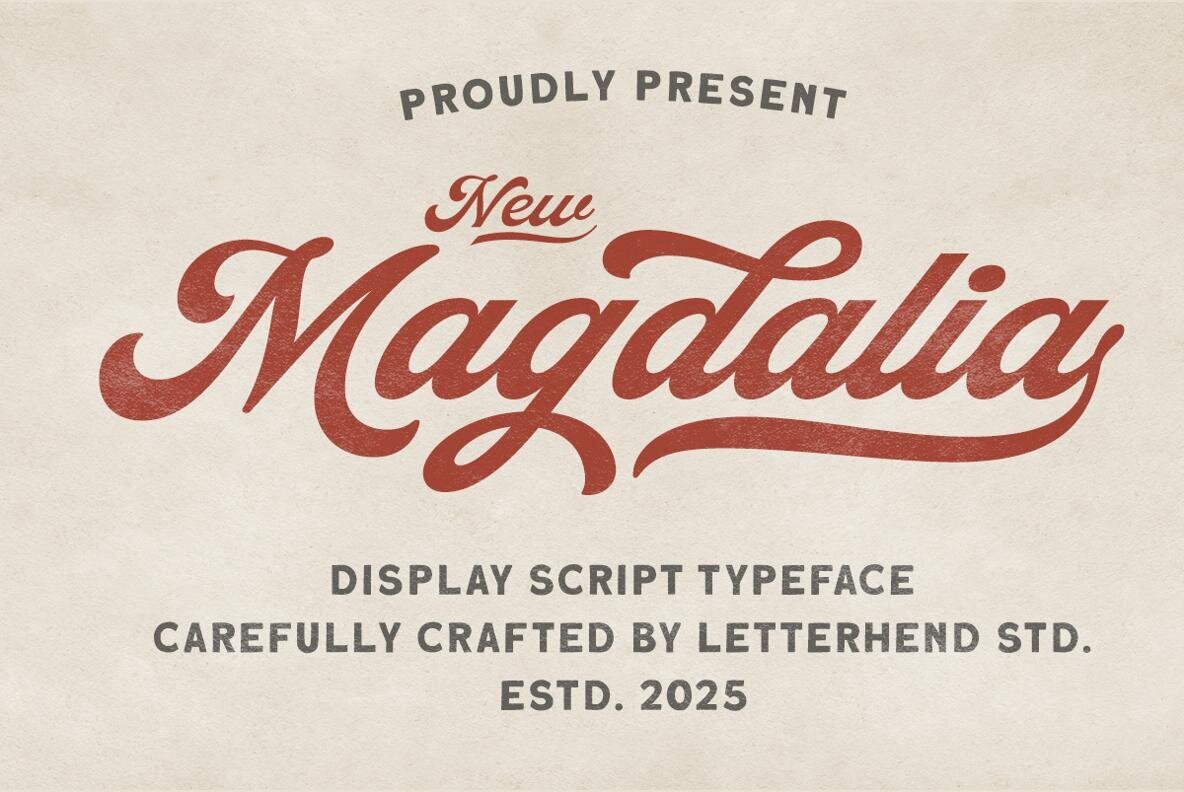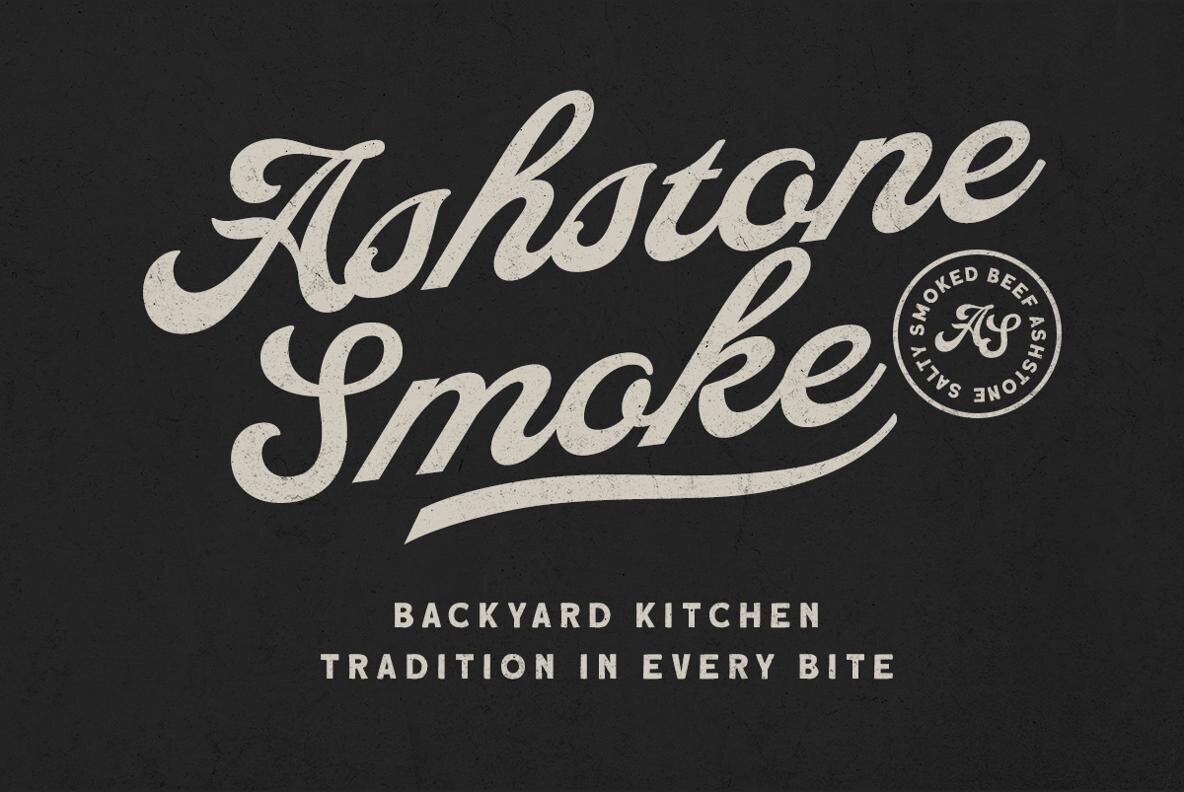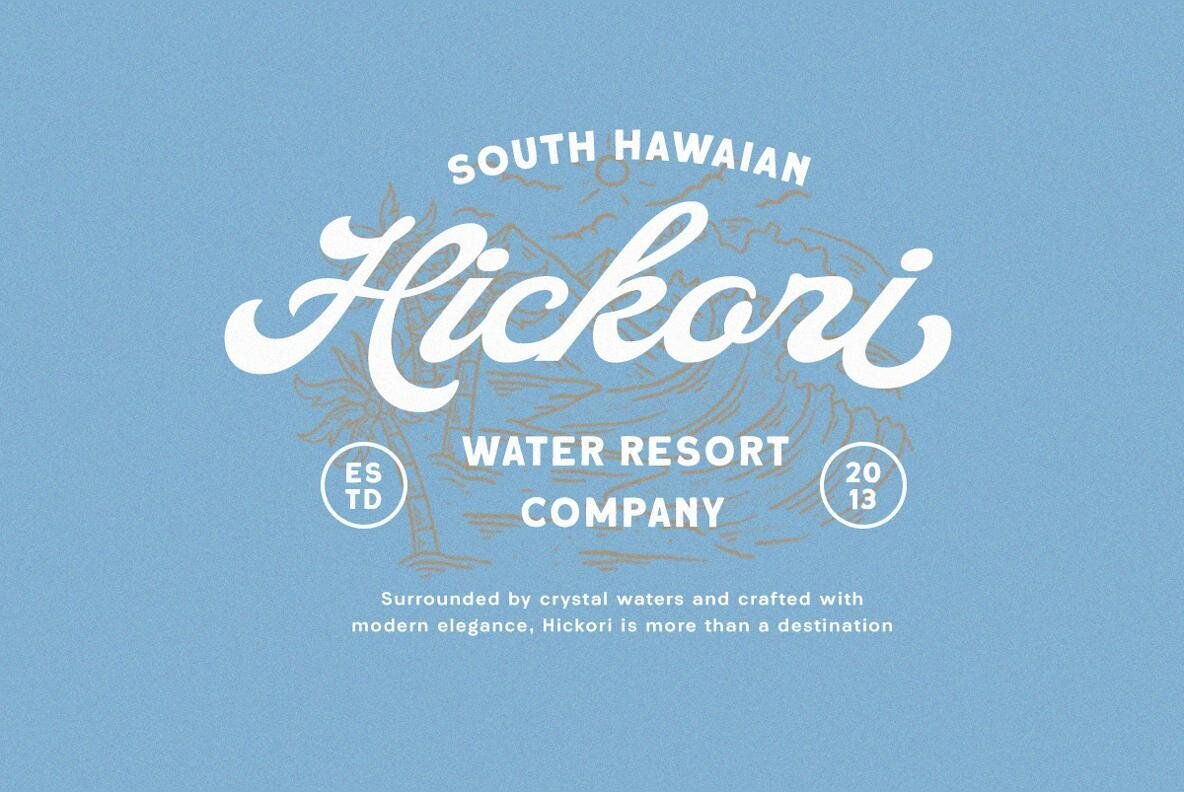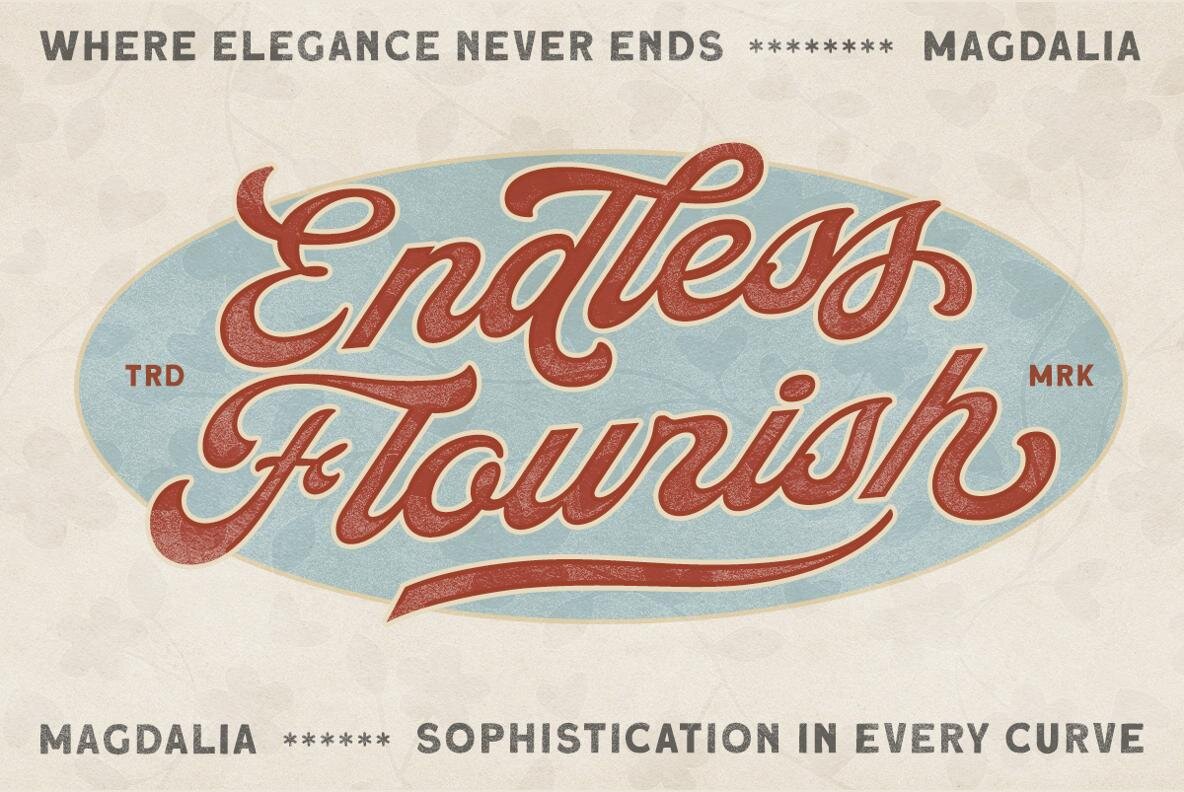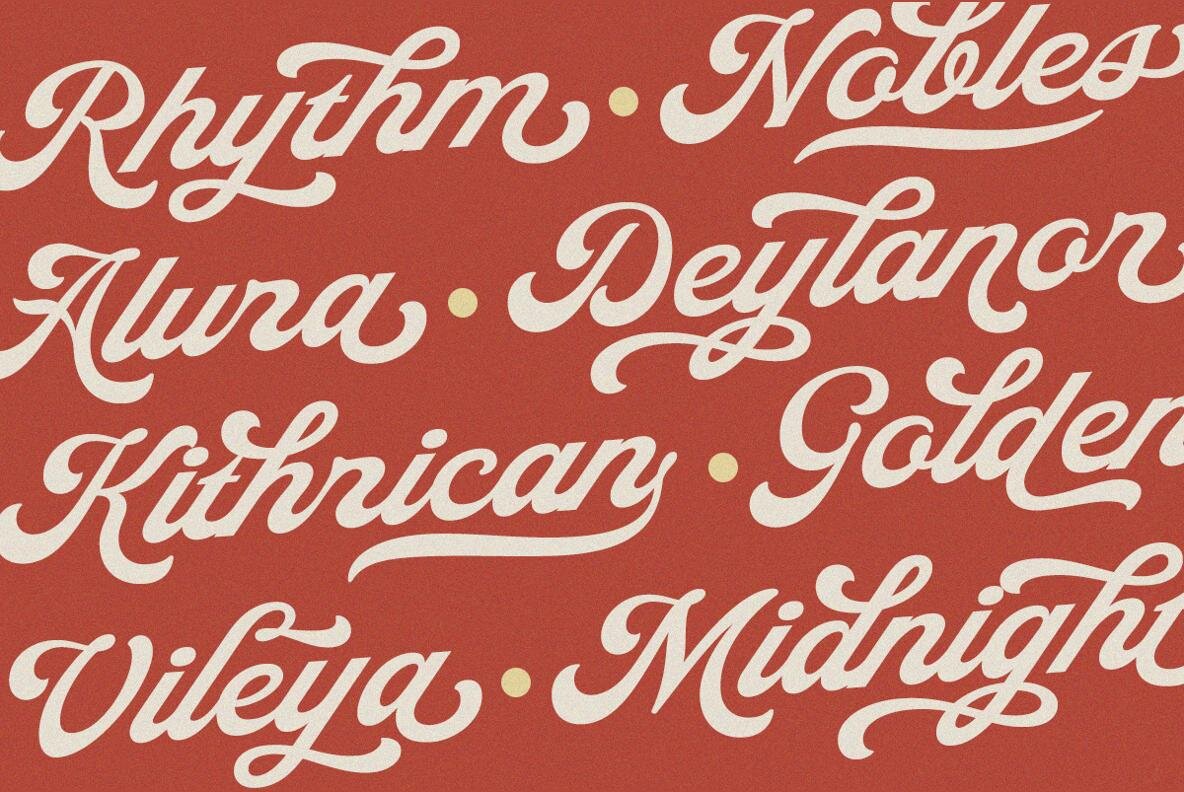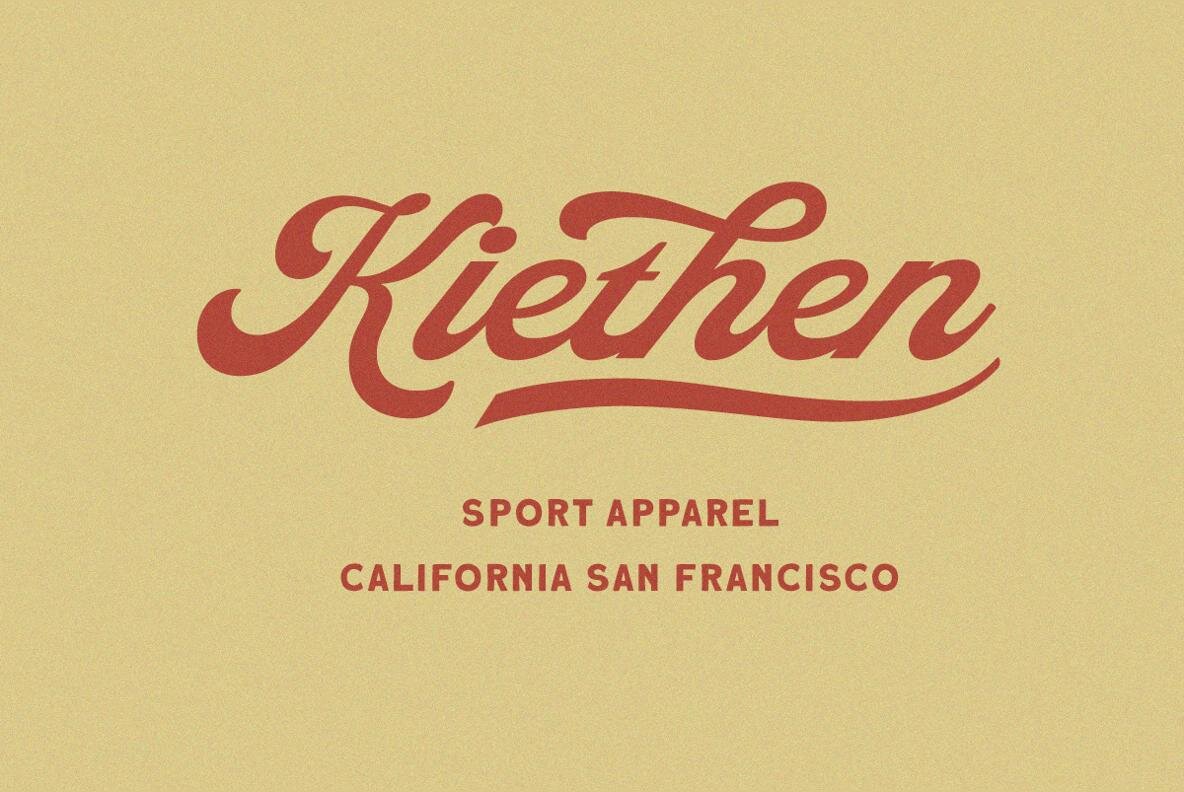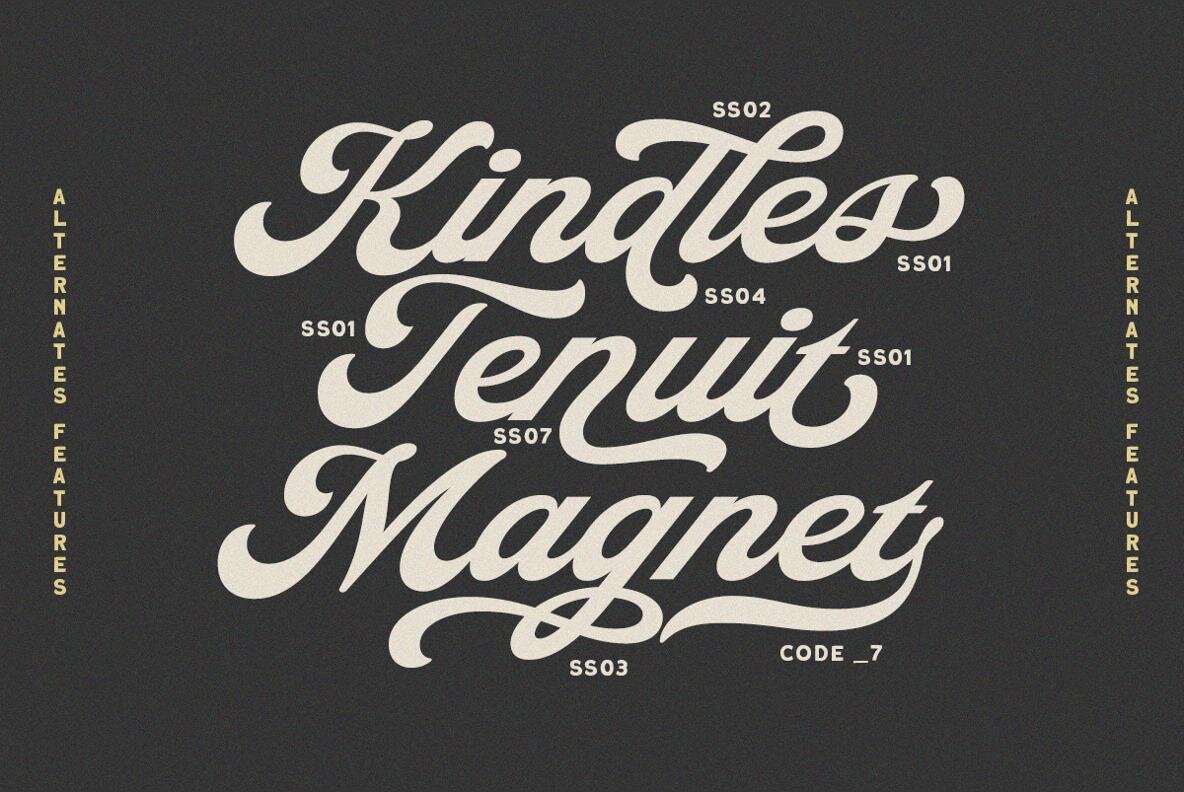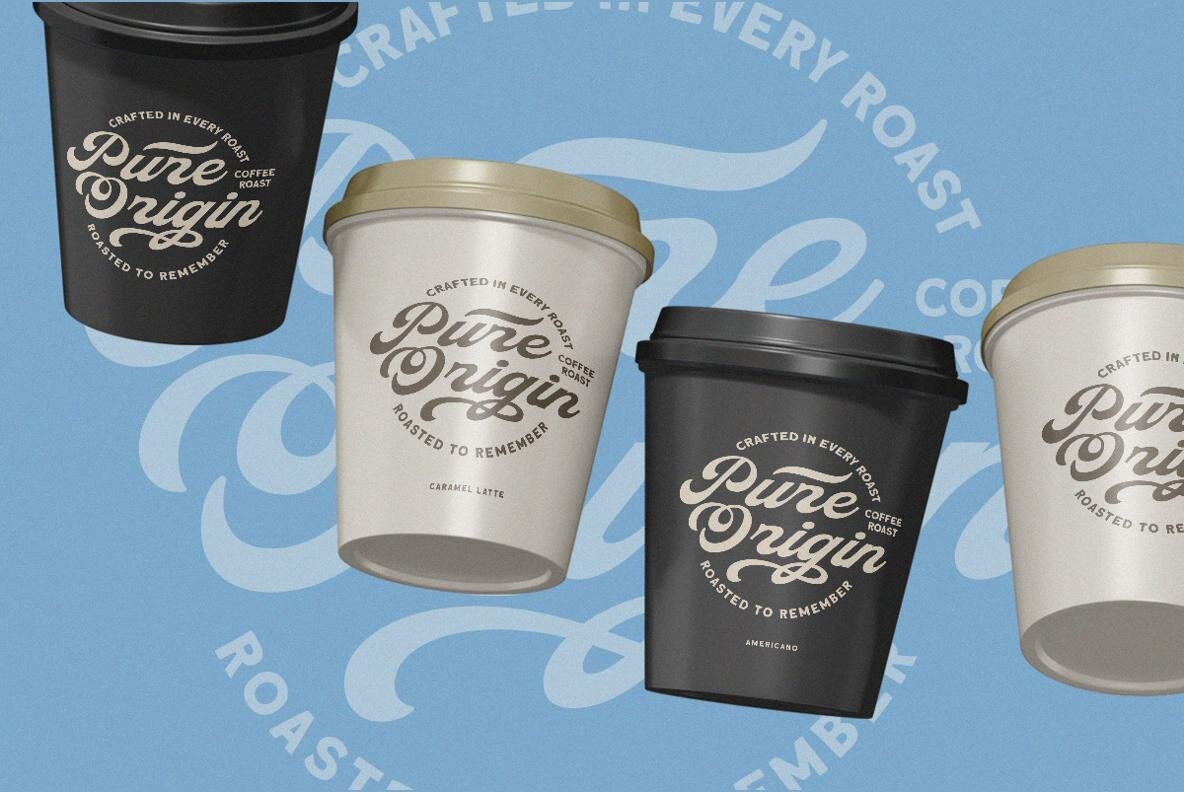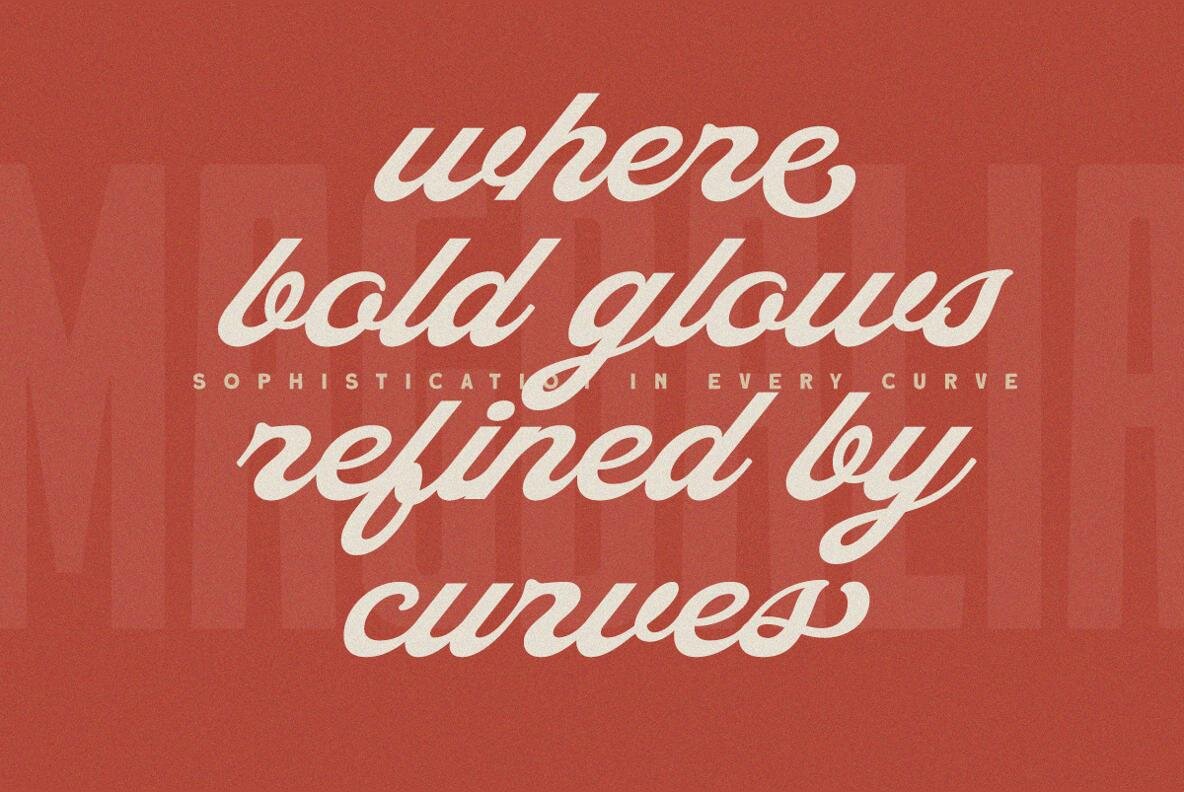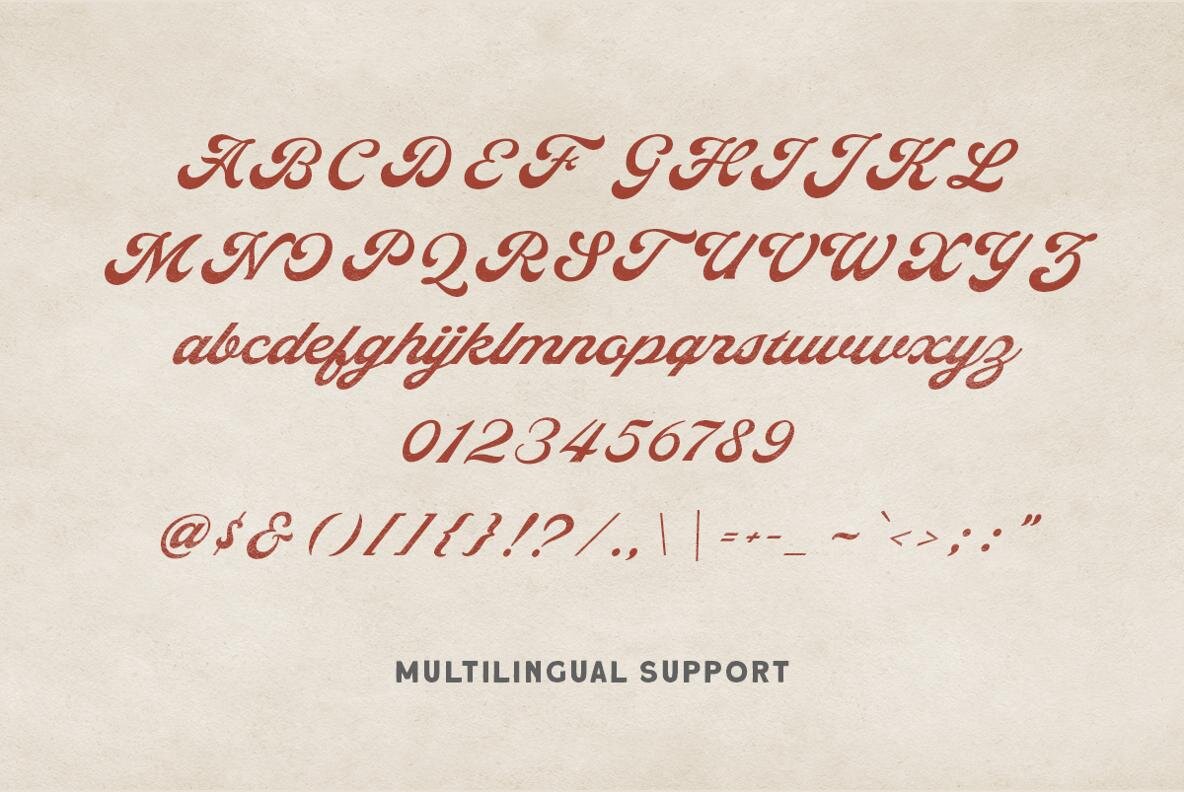
Magdalia Font
Magdalia Regular
Magdalia captures a bold, vintage aesthetic with its flowing script style and handcrafted character. The font’s smooth curves, elegant swashes, and tailored ligatures give each letter a distinctive, memorable look. Designed for designers seeking a font that balances retro appeal with modern craftsmanship, Magdalia works well for logos, packaging, posters, and apparel, helping your projects stand out with confident, classic personality. Each glyph in Magdalia is thoughtfully constructed to allow seamless alternates and ligatures, expanding creative options. Its wide language support and PUA encoding make customization straightforward, ensuring accessibility for diverse projects. For the best user experience, use design software with OpenType feature compatibility, such as Adobe Illustrator or Corel Draw, to access the complete range of glyph variations.Magdalia Vintage Display Script Font